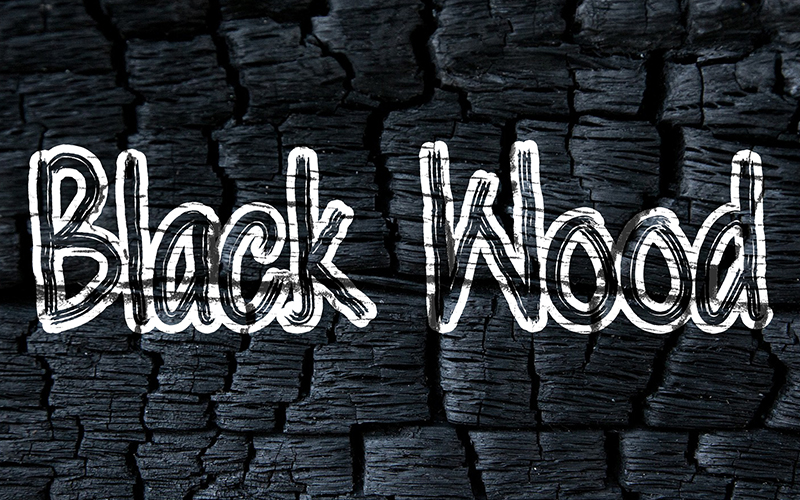
Font name: | Black Wood |
Author: | Febryl Arully |
Note by Febryl Arully | |
I designed this font with good and balanced graphics so that the use of the font will look good when composing paragraphs of sentences. I designed this font with great care so that I guarantee that the quality has met the standards that I have tested using testing tools to ensure the quality of this font really meets the standards. You can buy this font uses this link : https://www.creativefabrica.com/product/black-wood/ref/801824/ |